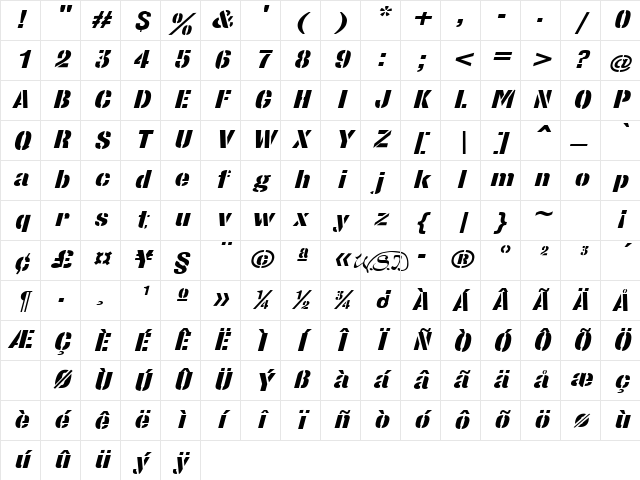
Complete StencilSans Extrabold Italic glyph index. Displaying only characters natively supported by StencilSans Extrabold Italic font.
StencilSans Extrabold borrows the utilitarian aesthetic of stencil lettering, with its characteristic cutaways and no-frills construction lending an industrial edge. The slanted form adds forward momentum and visual energy. Its bold stroke weight gives it real presence on the page.
Pro Tip: Use StencilSans Extrabold at large sizes on packaging, posters, or apparel where the stencil cutaways read clearly. Avoid small sizes where those gaps become visual noise.